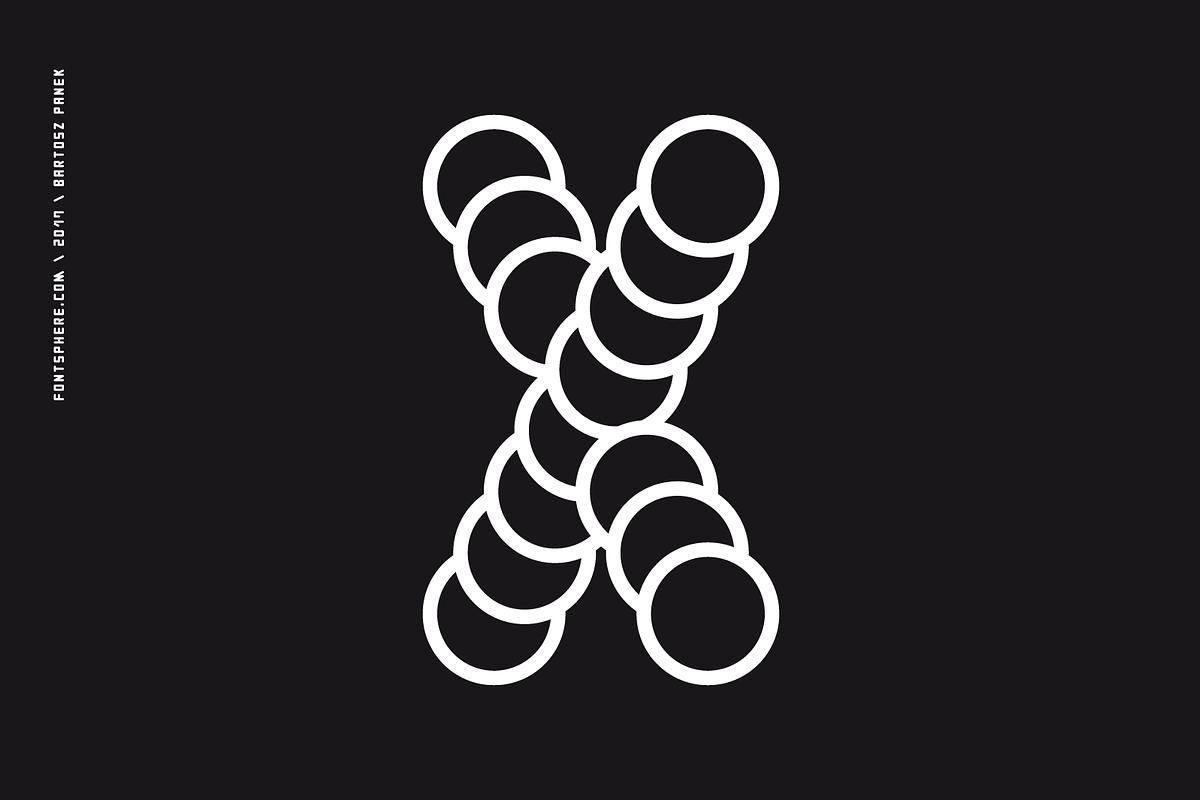
SUSHI Stroke Font Free Download is a fun and playful typeface inspired by the bold, clean lines of modern design with a touch of Japanese influence. Featuring sharp, defined strokes and a distinctive style, SUSHI is perfect for restaurant branding, food packaging, promotional materials, social media graphics, and more.
This font combines a modern aesthetic with an artistic, hand-crafted feel, making it ideal for food-related projects, especially for sushi restaurants, bistros, or any culinary brand looking to stand out with a memorable, bold look. Whether you're designing a menu, creating a food-related logo, or promoting an event, SUSHI Stroke adds a unique, flavorful touch to your typography.